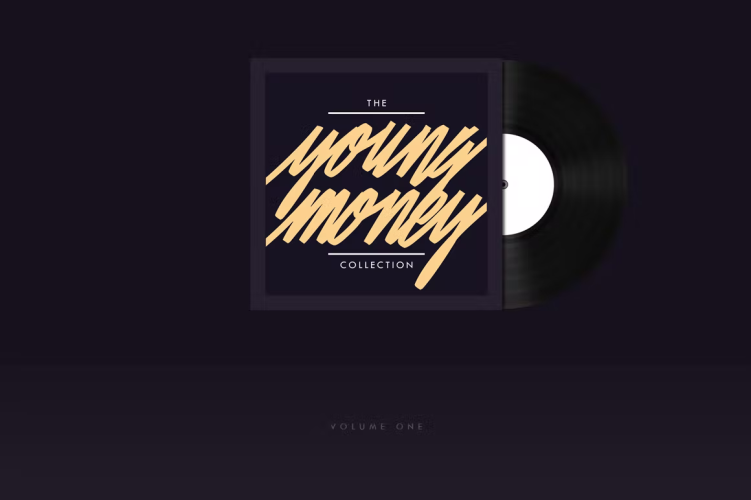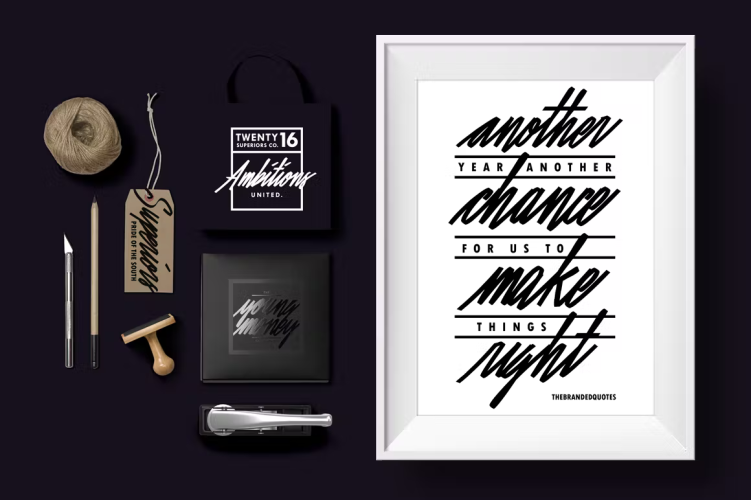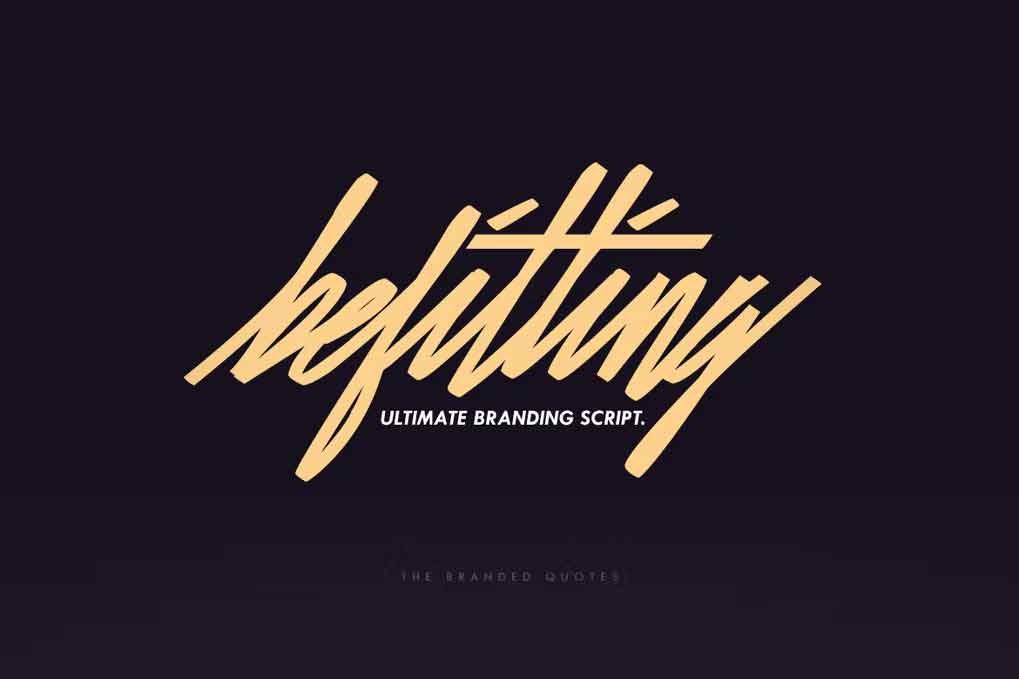
Befitting Script Font
Befitting Script gives you the blueprint of future possibilities. A Cursive programmed with smart alternates that flows smoothly as you assemble the words from your mind…
Befitting Script gives you the blueprint of future possibilities. A Cursive programmed with smart alternates that flows smoothly as you assemble the words from your mind. Very versatile and will absolutely fit to most branding concepts from your hang tags to the typographic design of your apparel brand. The urban style brush strokes gave the font a more flexible look but striking appearance!
Includes: Befitting Regular – the regular look of Befitting Script which includes the standard characters, ligatures, contextual alternates and alternate characters. Befitting Slant – a more slanted and cursive look with a “quickly written” feel. Befitting Alternates – the alternate characters were manually picked to form a new font for you to easily access the bonus glyph.
Where Befitting Script Font works best
A short phrase in Befitting Script Font carries warmth that a typeset sans cannot fake; keep the rest of the card plain.
Chalkboard-style headings in Befitting Script Font make a menu feel hand-made. Keep the dish descriptions in a simple face so prices stay readable.
One line of Befitting Script Font over a photo is enough; the script carries the tone and the caption does the work.
What kind of work does Befitting Script Font suit?
It sits in the Script And Handwritten group and reads as befitting, branding, brush, script. That makes it a candidate wherever those qualities help: headings, packaging, social graphics and brand work. Set it at the size you plan to use before deciding.